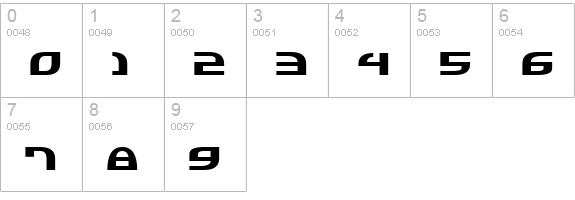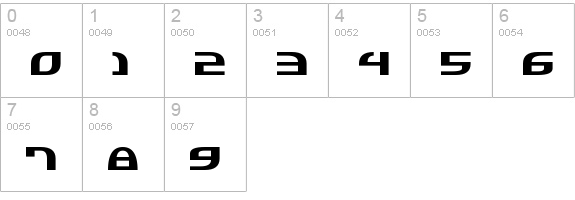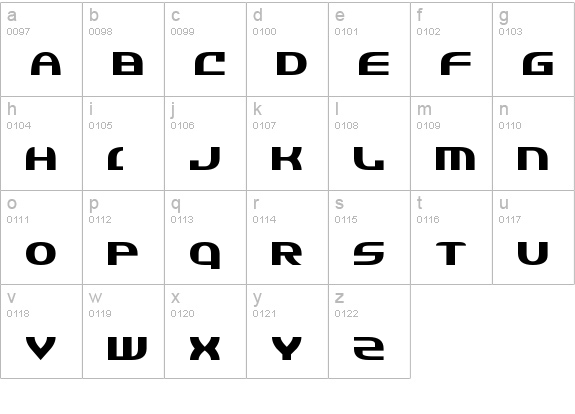
Jannisaries Expanded is a distinctive, extended-width variant in the Jannisaries typeface family \xE2\x80\x94 well suited to design and typography projects.
Jannisaries Expanded font is a visually striking typeface that commands attention with its bold and powerful presence. With its sleek and modern design, this font is perfect for headlines, titles, and any project that requires a strong and impactful visual statement. The Jannisaries Expanded font is an expanded version of the original Jannisaries font, offering even more versatility and impact. Its wide characters provide a sense of stability and strength, making it ideal for designs that demand a bold and confident personality. Not only does Jannisaries Expanded font offer exceptional aesthetics, but it also ensures legibility and readability in any size or context. Its carefully crafted letterforms guarantee clear communication, whether it's on a large billboard or a small mobile screen. What sets Jannisaries Expanded font apart is that it is freely available to download at FontsMarket.com. This means you can enjoy the beauty and versatility of this font without any cost. Whether you're a professional designer, a student, or simply someone looking to enhance your creative projects, Jannisaries Expanded font is a valuable addition to your font collection. So why wait? Download Jannisaries Expanded font today from FontsMarket.com and unleash its power and impact in your designs. With its bold and captivating presence, this font will undoubtedly elevate your creations to new heights.